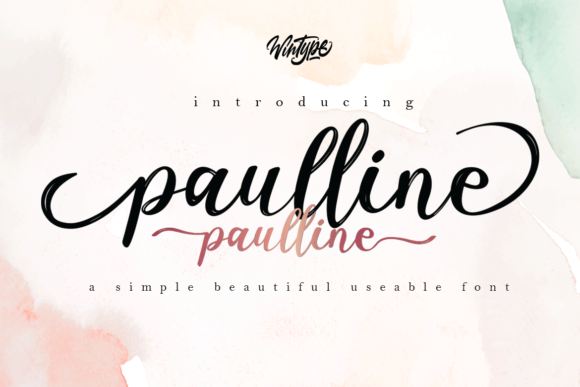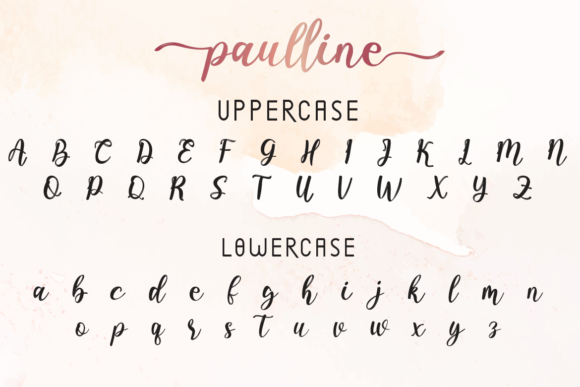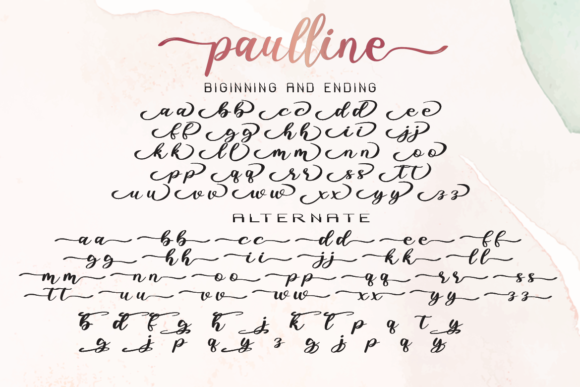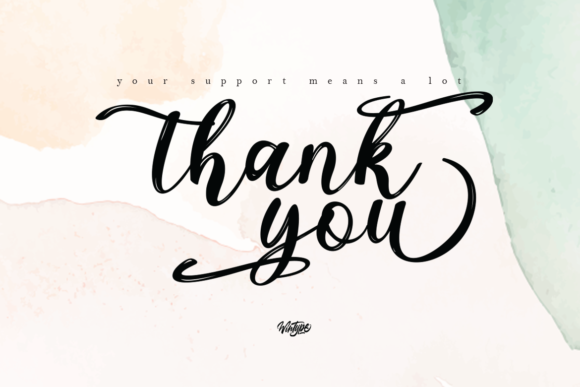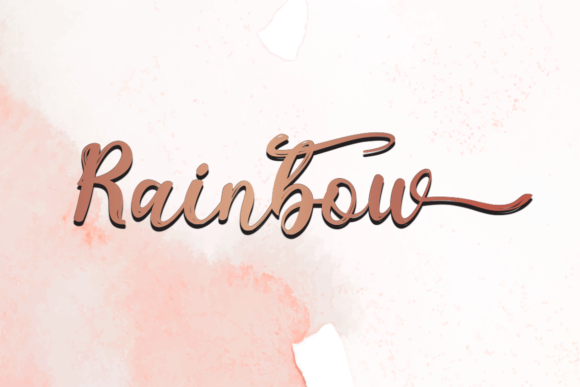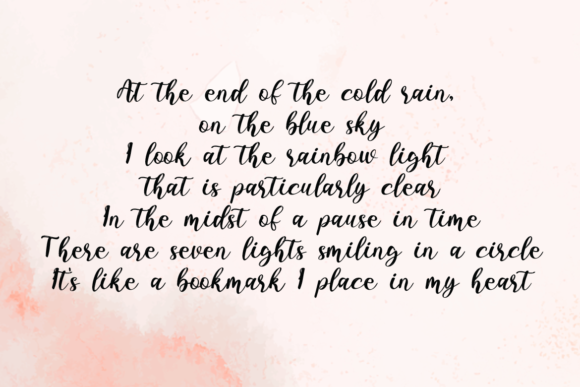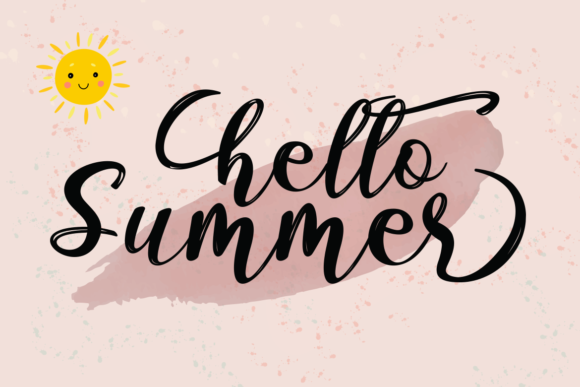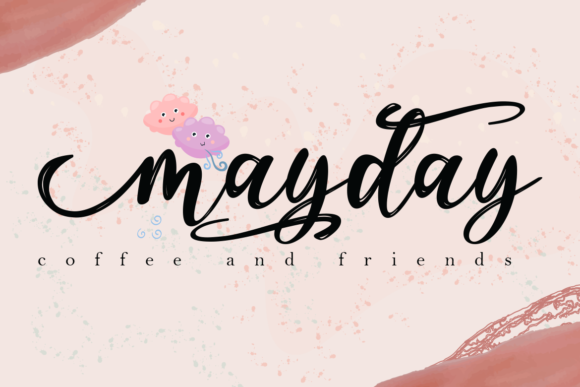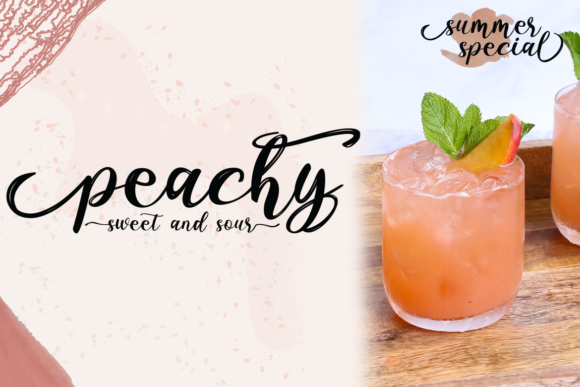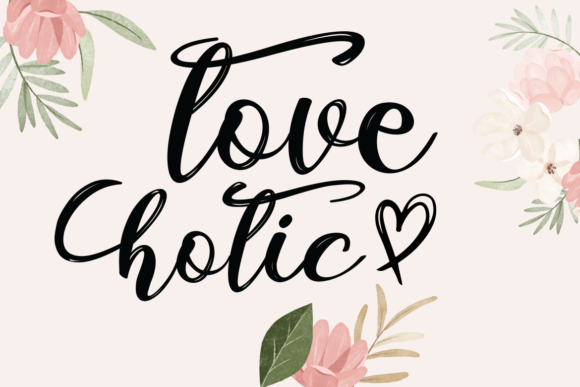
Paulline Font
About Paulline Font
Paulline is a beautiful, lightweight script font with a lovely feel. It will turn any design project into a standout! Paulline is PUA encoded which means you can access all of the glyphs and swashes with ease!